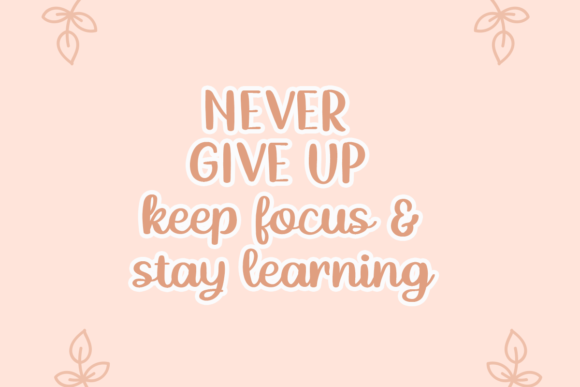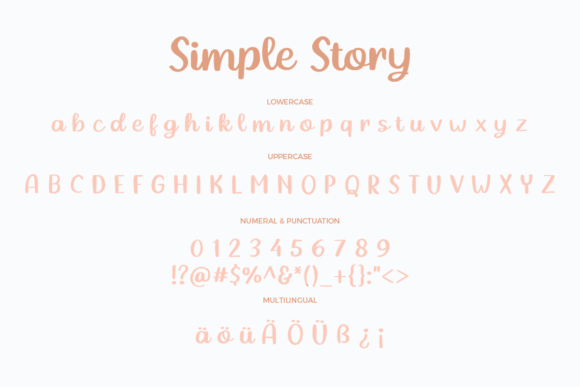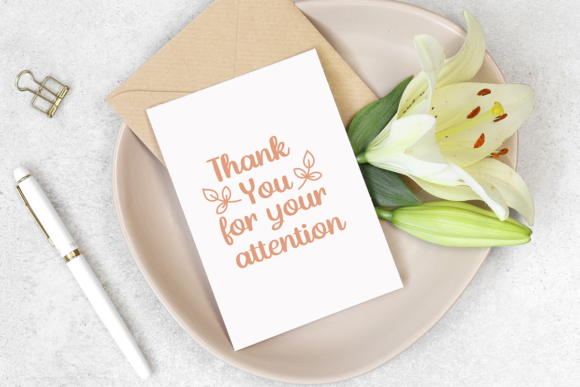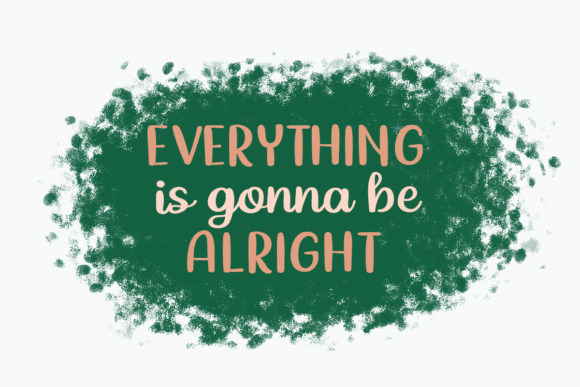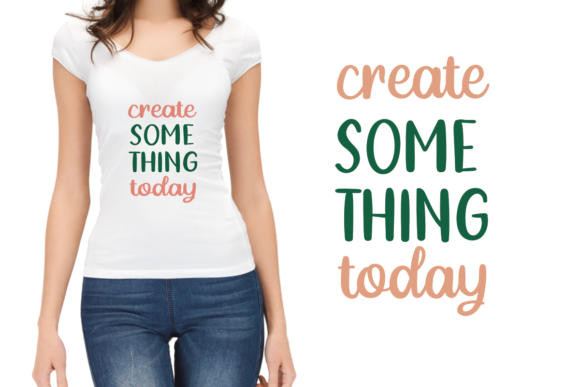
Simple Story Font
About Simple Story Font
Simple Story is a charming and approachable handwritten font that adds a touch of warmth and friendliness to any design. With its clean and legible letterforms, this font is versatile and adaptable, making it suitable for various contexts and applications.
The simplicity of Simple Story allows it to shine in any design setting. Whether you’re using it on busy backgrounds or as a standalone headline, it effortlessly captures attention and conveys a sense of ease and approachability. The clean lines and balanced proportions of each character create a harmonious and pleasant visual experience.
This font’s friendly and inviting nature makes it well-suited for a wide range of projects. From greeting cards and invitations to social media graphics and branding materials, Simple Story adds a personal and heartfelt touch. Its handwritten style evokes a sense of authenticity and genuine connection, making it perfect for designs that aim to create a warm and welcoming atmosphere.
One of the strengths of Simple Story is its versatility. It can be paired with different design elements, colors, and styles, allowing it to adapt to various themes and aesthetics. Whether you’re going for a minimalist look or a more vibrant and playful design, Simple Story seamlessly integrates into the overall composition, enhancing the visual appeal and legibility of your text.
The readability of Simple Story is another notable feature. Each letter is carefully crafted to ensure clarity and ease of reading, even at small sizes. This makes it suitable for both headlines and body text, giving you the flexibility to use it across different design elements within your project.
In summary, Simple Story is a delightful and friendly handwritten font that brings a touch of sweetness and approachability to your designs. Its clean and legible letterforms make it suitable for various contexts, whether you’re using it on busy backgrounds or as a standout headline. Embrace the simplicity and charm of Simple Story, and watch as it adds a warm and inviting feel to your design projects.